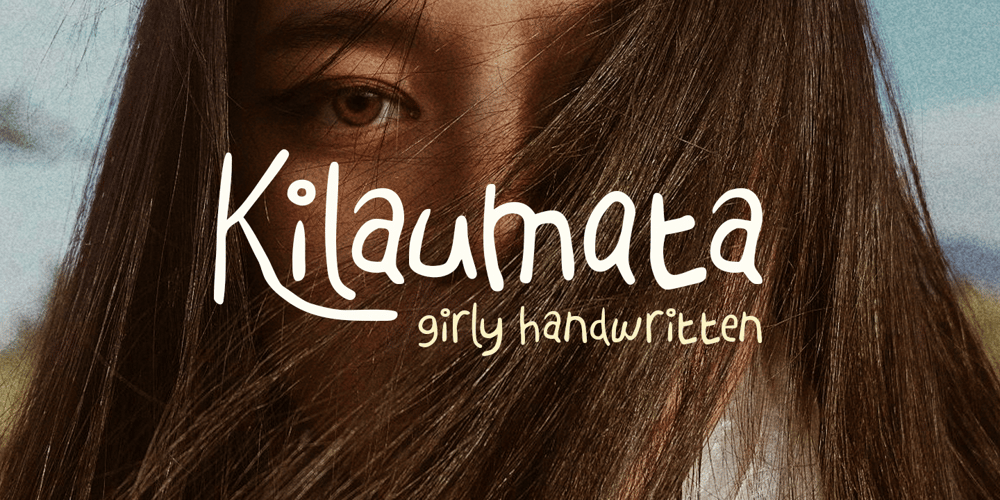
Kilaumata
Kilaumata font
Kilaumata Font Family was designed by Amelia Dian Isnaini and published by Sloulyfe Studio. Kilaumata contains 1 styles and family package options. Get ready to add some sparkle to your designs with Kilaumata fonts! 🌟👀 This handwritten font has a girly vibe that’s fun and cozy, just like real handwriting. Bring your designs closer and captivate your audience visually!Perfect for all your design needs, whether it’s your favorite brand identity, novel titles, birthday invitations,word quotes, or anything else you can dream up. Let your creativity shine with Kilaumata fonts!Features :Uppercase & lowercase, Numbers and punctuation, Sketchy doodle bonus, Alternates or Ligatures, Multilingual support & PUA encoded